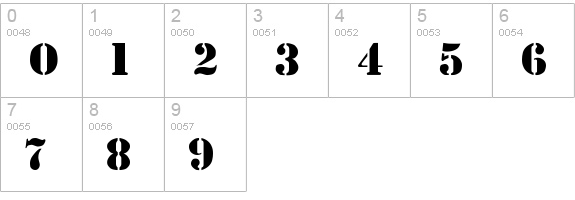
StencilCut.fog Font Details
StencilCut.fog is a modern and sleek stencil font that exudes a sense of creativity and innovation. With its clean lines and bold design, this font is perfect for making a statement and catching the eye of your audience. Whether you're designing posters, logos, or any other creative project, StencilCut.fog is sure to provide a unique and stylish touch. Best of all, StencilCut.fog is completely free to download at FontsMarket.com! You can easily add this versatile font to your collection without any cost, making it a valuable asset for any designer or creative professional. Don't miss out on the opportunity to enhance your projects with the distinctive flair of StencilCut.fog - download it today and let your creativity shine!